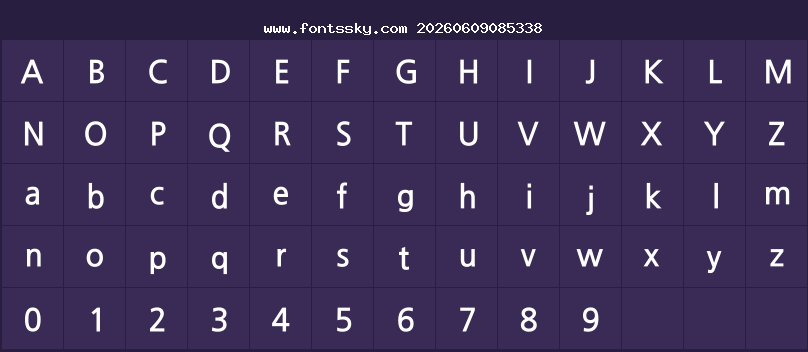
제주고딕 Preview
• Font Name: 제주고딕
• Font ID: 1.000;SAND;JejuGothic
• Full Font Name: 제주고딕
• PostScript Name: JejuGothic
• Character Count: 17684
• Designer: 이도경; 노영권;
• Manufacturer: Sandoll Communicatinos Inc.
About 제주고딕.ttf
제주고딕.ttf is a modern, elegant sans-serif font designed for ultimate readability and visual harmony. Perfect for branding, headlines, web design, and print materials.